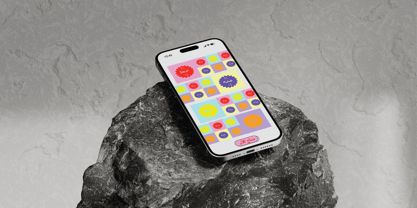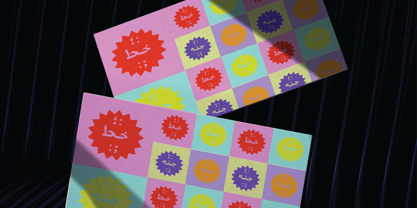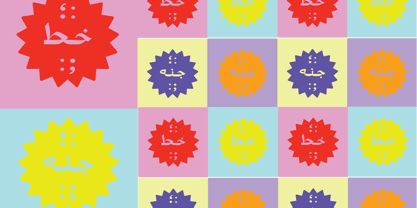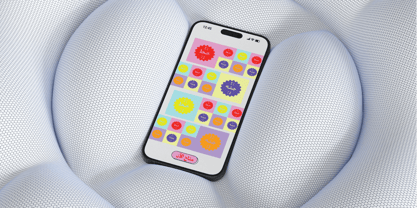
Khat Jannah
Introducing Khat Jannah, a captivating and unique font that breaks away from traditional design conventions. This exceptional typeface pushes the boundaries of Arabic typography, offering a distinct and visually striking display font unlike any other.
Introducing a revolutionary Arabic font that breaks away from the traditional style and embraces boldness and versatility. This unique font, designed with meticulous attention to detail, offers a fresh perspective on Arabic typography, making it suitable for a wide range of purposes.Unlike typical Arabic fonts that adhere to conventional calligraphic forms, this font takes a daring approach by incorporating bold strokes and distinctive letter shapes. Its unconventional design captivates the eye and immediately sets it apart from other Arabic fonts, making it ideal for those seeking a contemporary and innovative visual identity.The boldness of this font exudes confidence and strength, making it perfect for headlines, titles, and impactful graphic designs. Its clean and legible characters ensure readability, even in smaller sizes, allowing it to seamlessly adapt to various print and digital mediums.